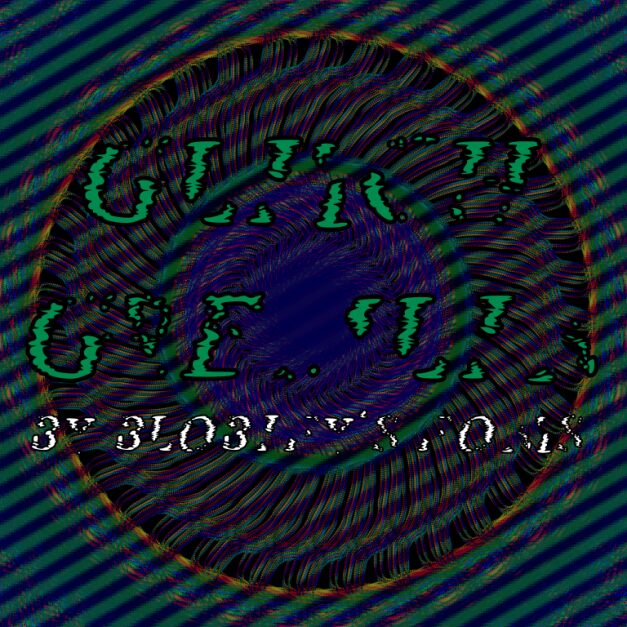
Glitch Gremlin font by Blobify is a chaotic and unconventional display font that builds visual interest with each letter. While symbols of this font family are easily recognizable, unusual touches make it unpredictable and interesting. Explore a fresh take on distorted and digital text through this free font which brings together human creativity and computer software in its design process.
Glitch Gremlin is perfect for artistic or commercial posters, book covers, advertisements, or illustrations in a wide range of styles. Use it for personal art projects, marketing campaigns, social media, packaging, and any project that needs a digital and modern flair.